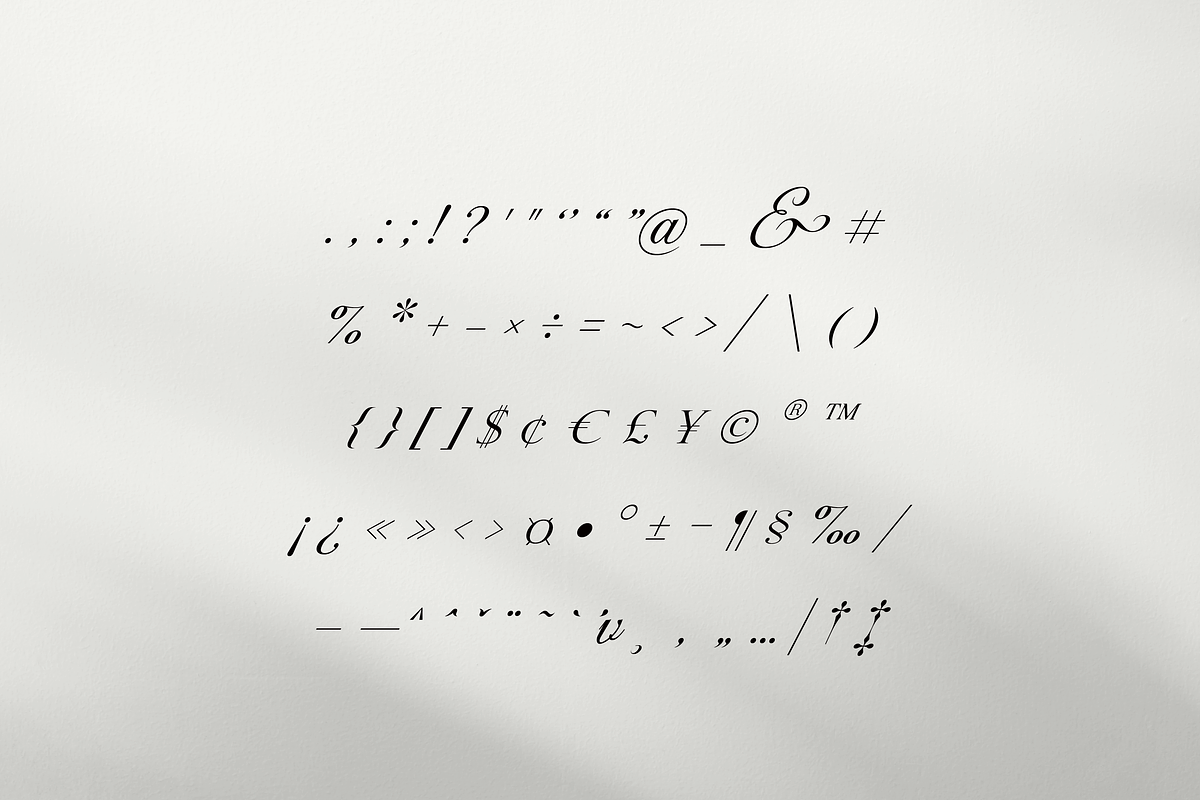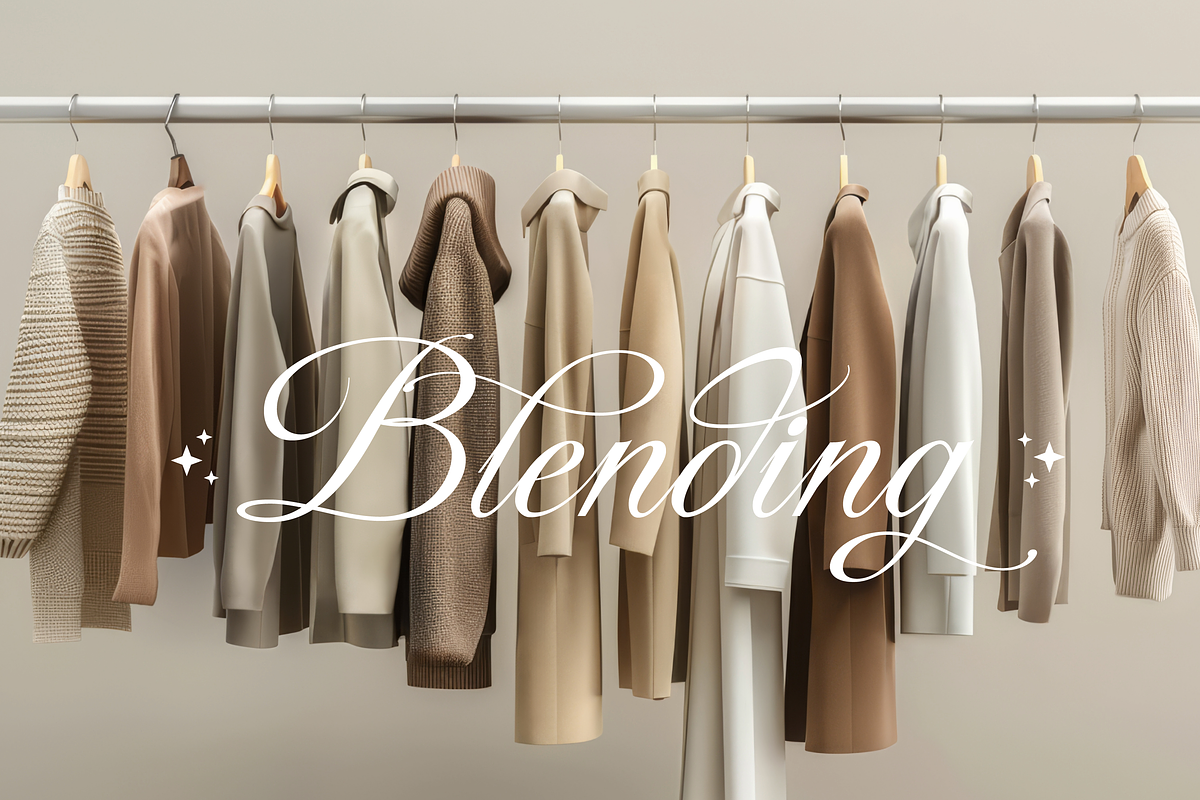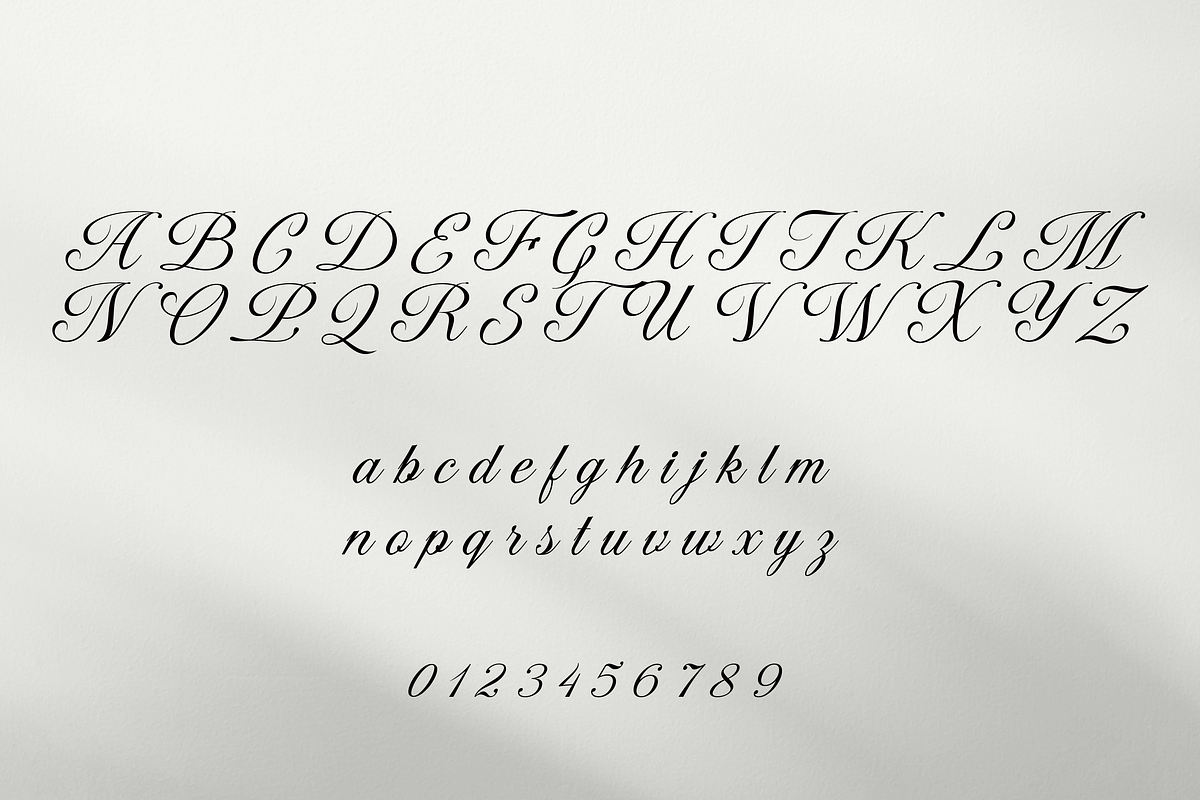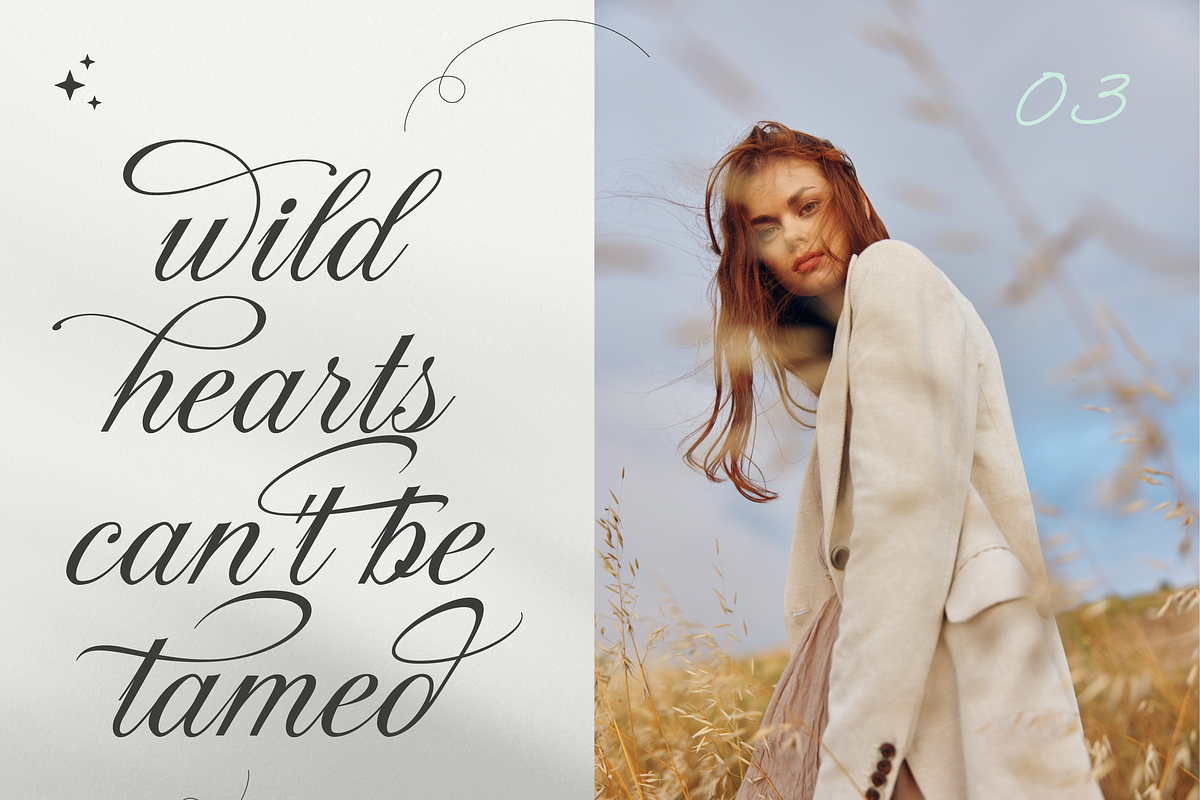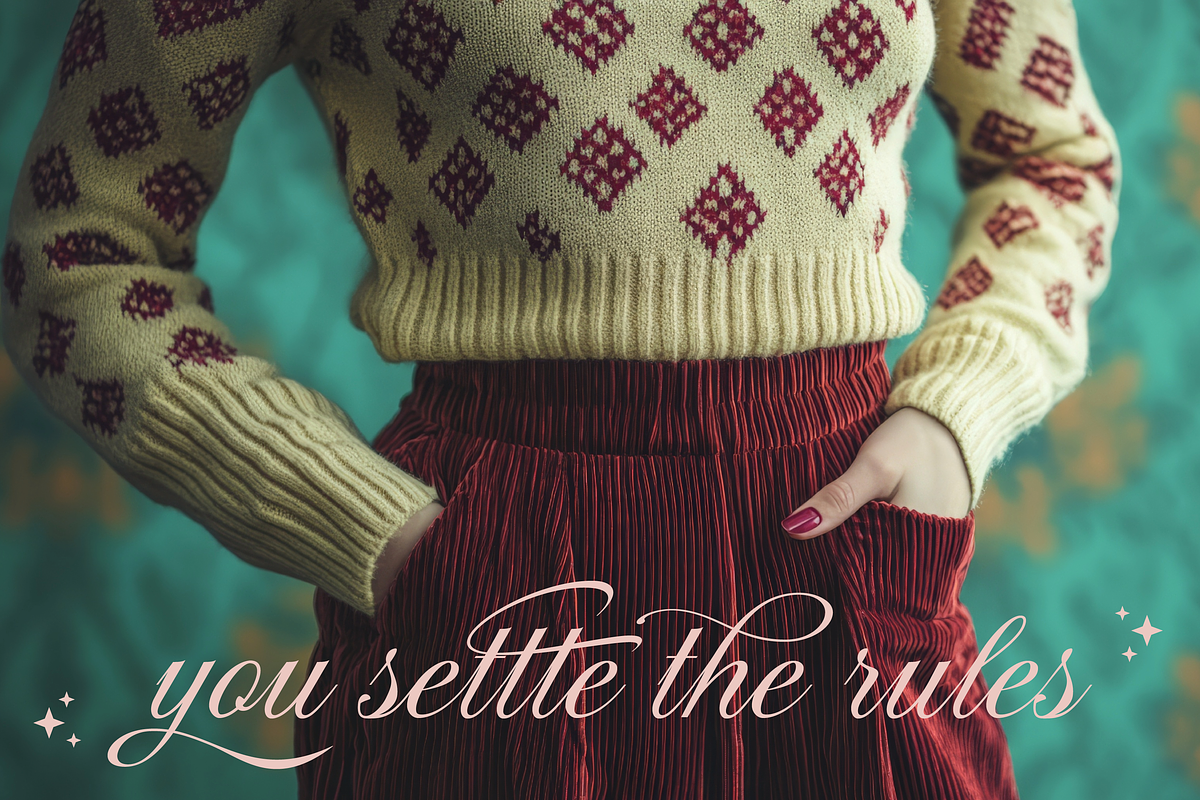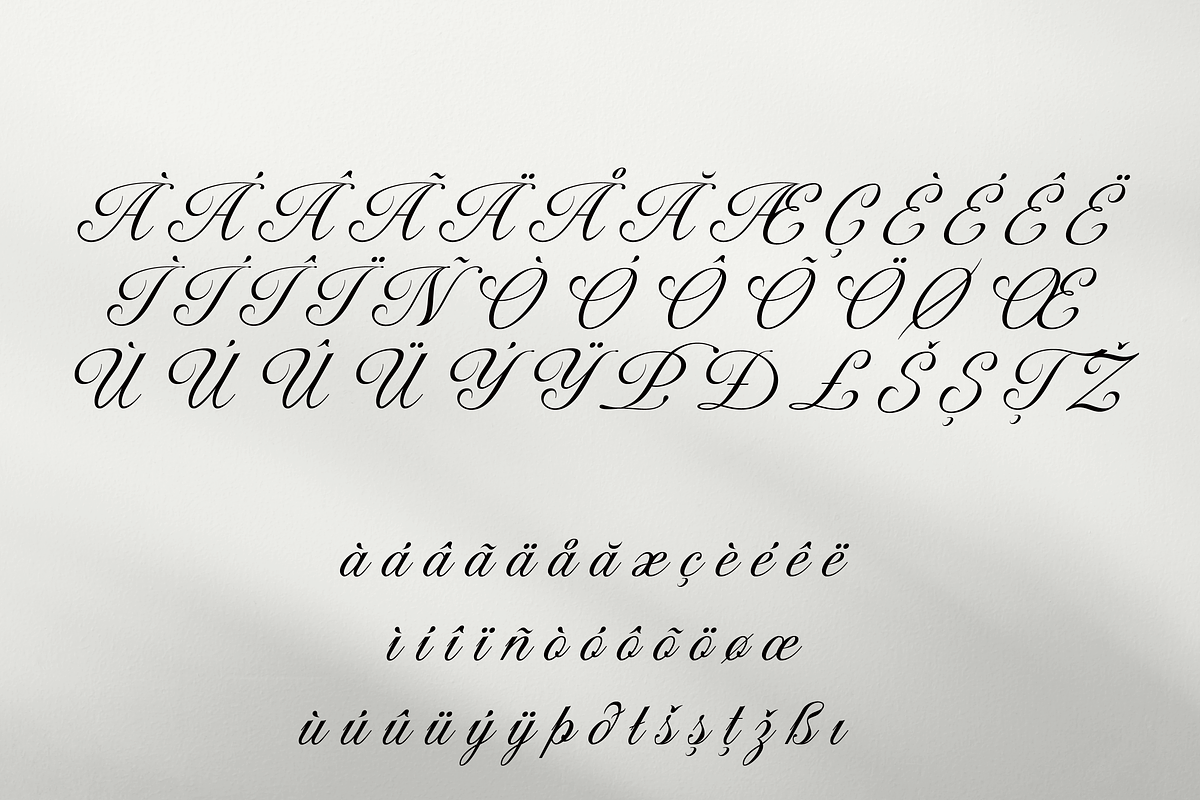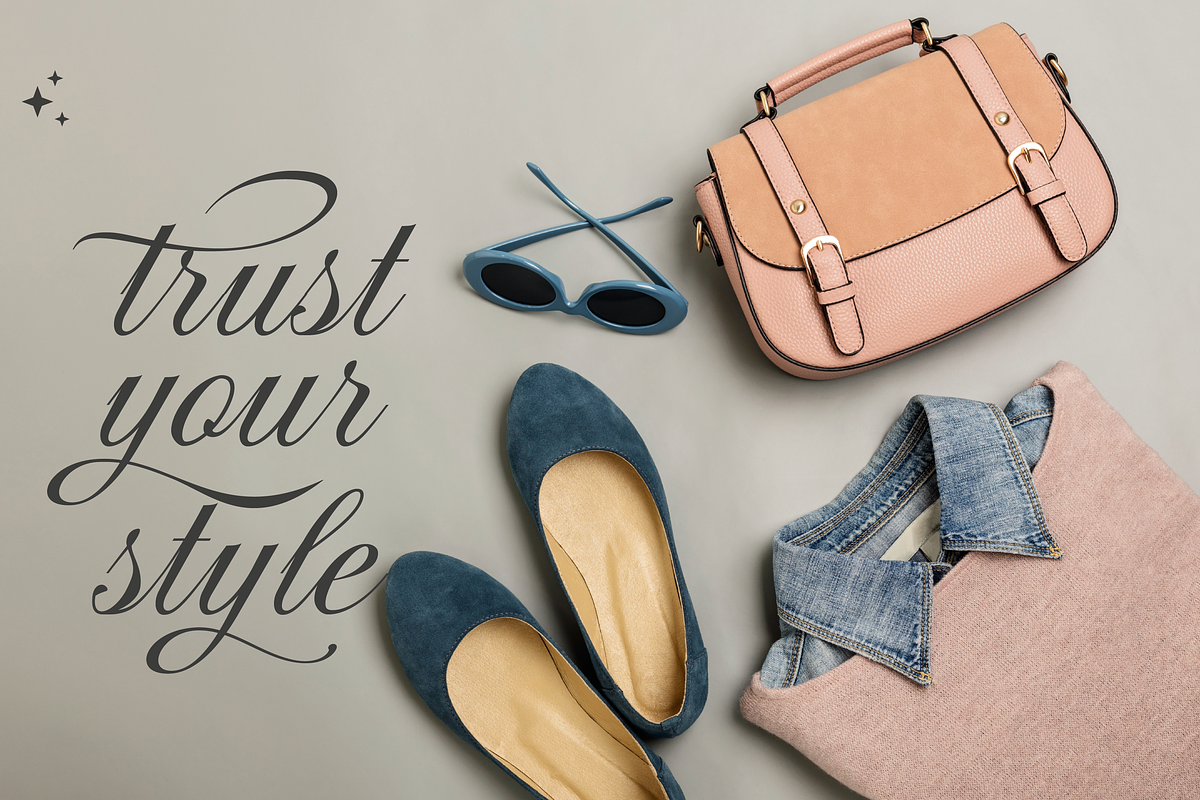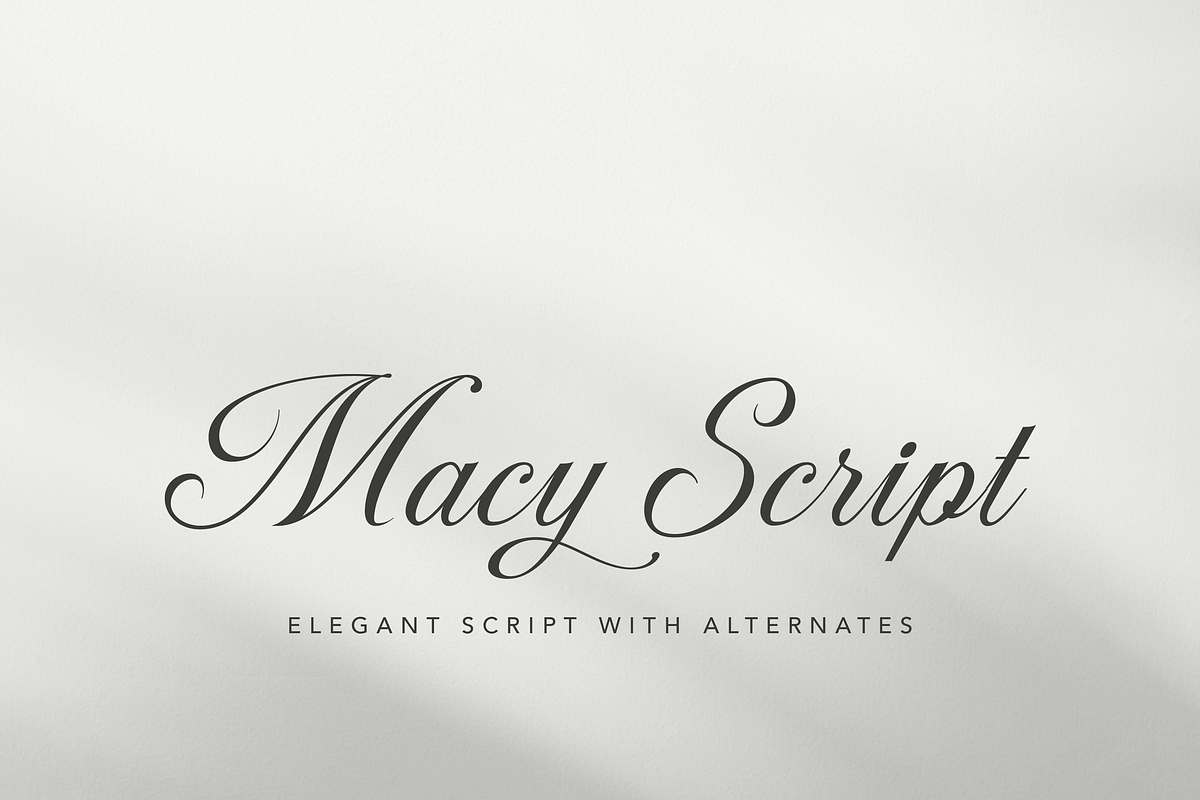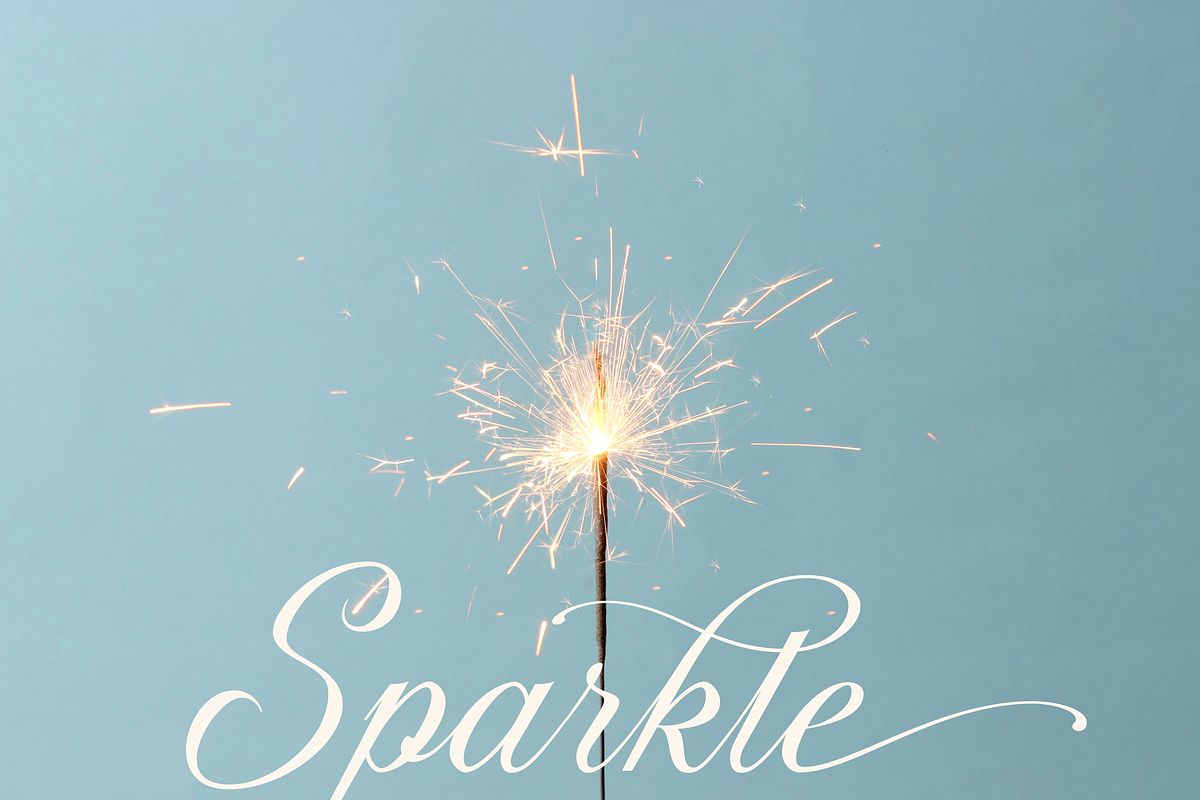
Macy Script
Macy Script – Elegant Calligraphic Script with Swash Alternates
Macy Script is a beautifully flowing calligraphic font that brings the art of fine handwriting to modern design. Its graceful curves, dramatic swashes, and customizable alternates make it a standout choice for any project in need of sophisticated charm.
Whether you’re crafting an upscale invitation suite or designing a bold poster headline, Macy Script delivers timeless elegance and creative flexibility in every curve.